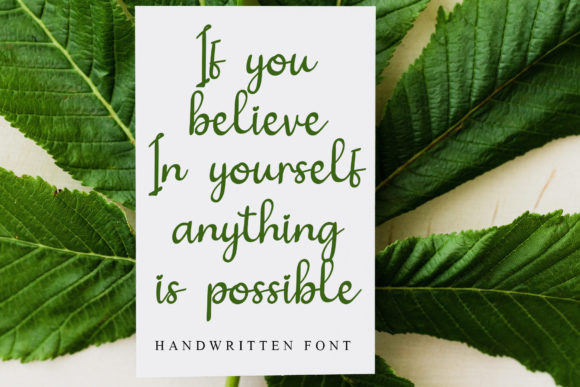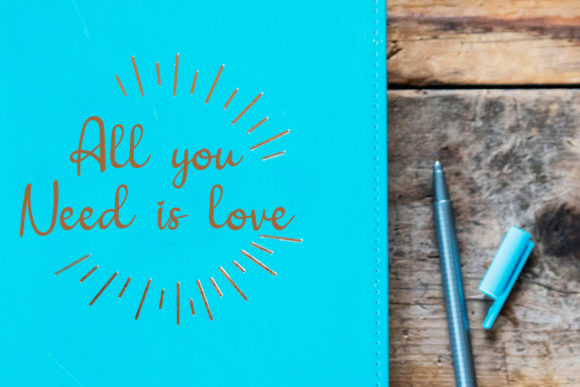
Zehra Font
db-ku.com - Script & Handwritten -- Zehra is a unique and elegant font specially designed just for you. This font is made with a professional hand touch and is perfect for your projects.